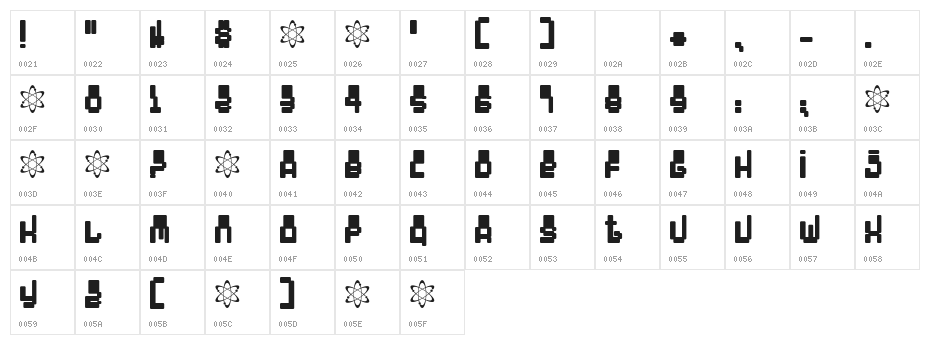
Oddessey 4000 Font
Oddessey 4000 Description
This font features a bold, futuristic design with a blocky, geometric structure. Each character is composed of solid, rectangular shapes, giving it a digital and modern appearance. The uppercase and lowercase letters maintain a consistent height, enhancing its uniformity. The numbers and special characters follow the same design principles, ensuring a cohesive look across all elements. The font's unique style makes it stand out, with a strong presence that is ideal for attention-grabbing designs.
| Proposed Projects | Ideal for sci-fi themed projects, video game titles, tech branding, and digital media. |